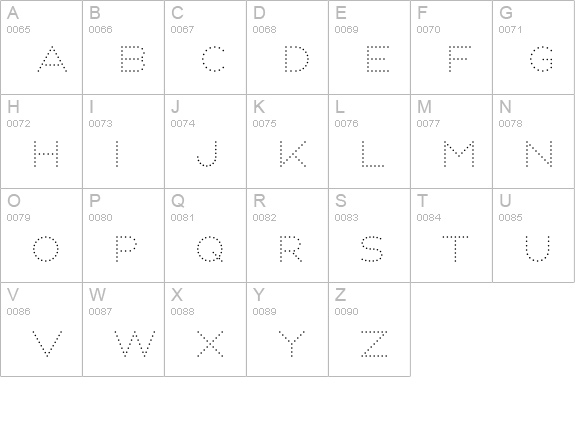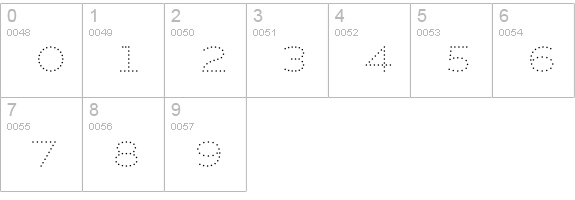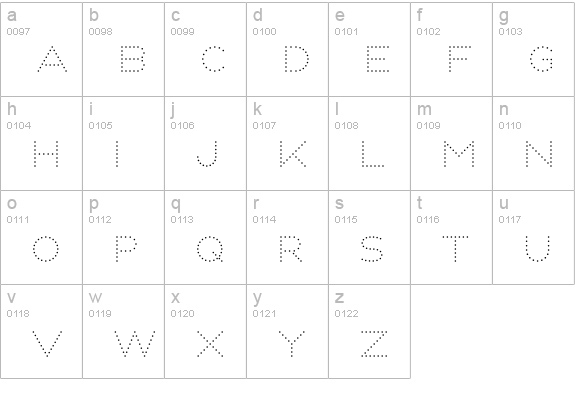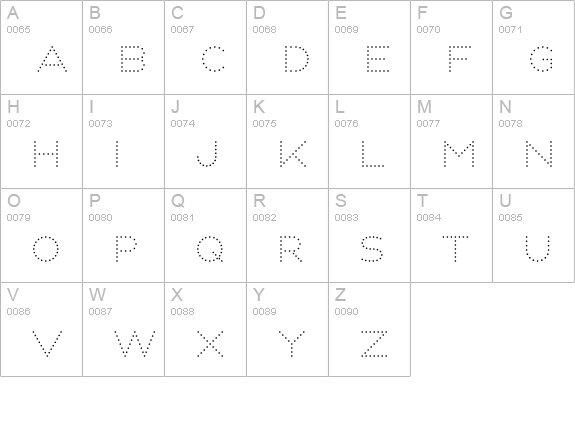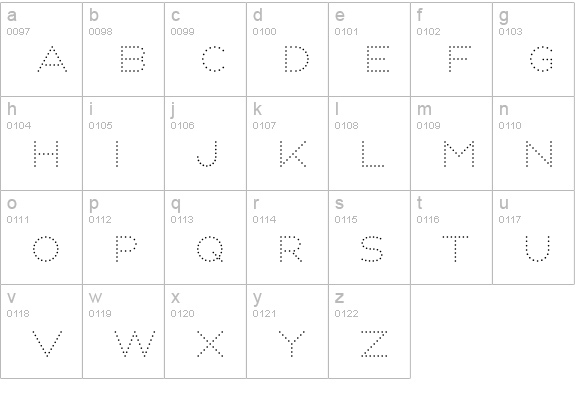
Fun City Level 1 Dots Font Details
Fun City Level 1 Dots font is a playful and quirky typeface perfect for adding a touch of fun to your designs. With its rounded edges and cheerful appearance, this font is sure to bring a smile to anyone who sees it. Whether you're creating posters, invitations, or social media graphics, Fun City Level 1 Dots font will add a whimsical charm to your projects. And the best part? This font is available for **free** download at FontsMarket.com! Get your hands on this delightful typeface today and let your creativity shine with Fun City Level 1 Dots font.